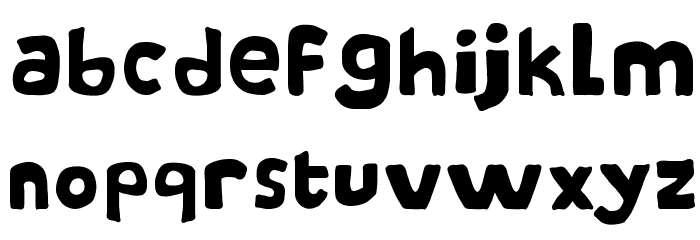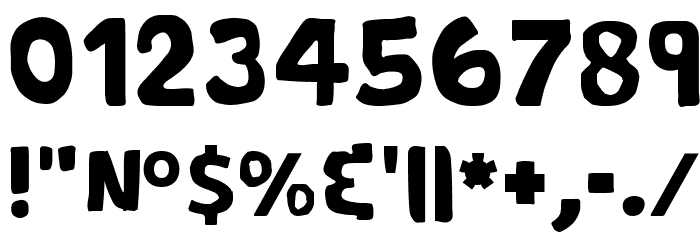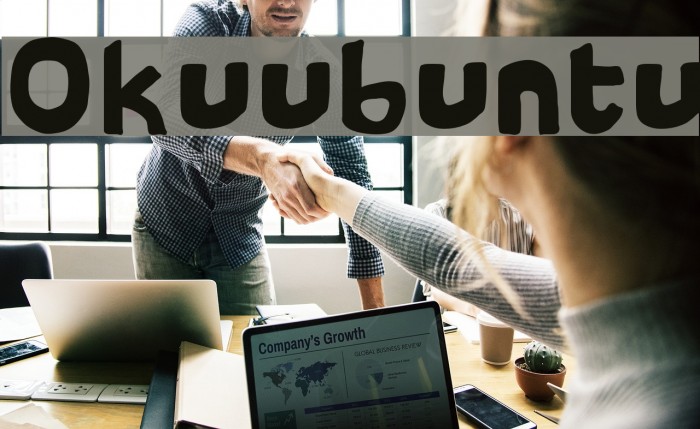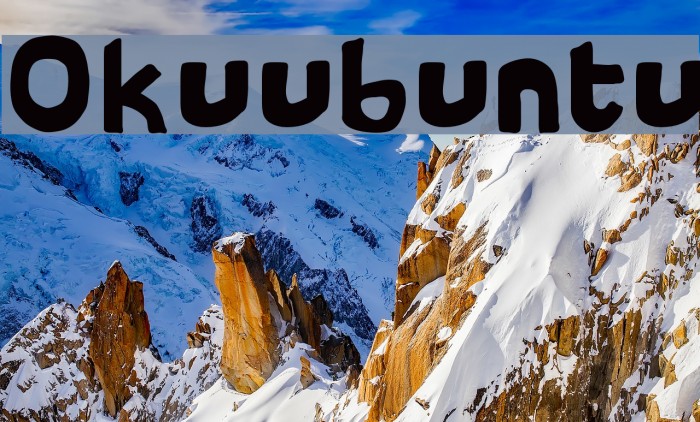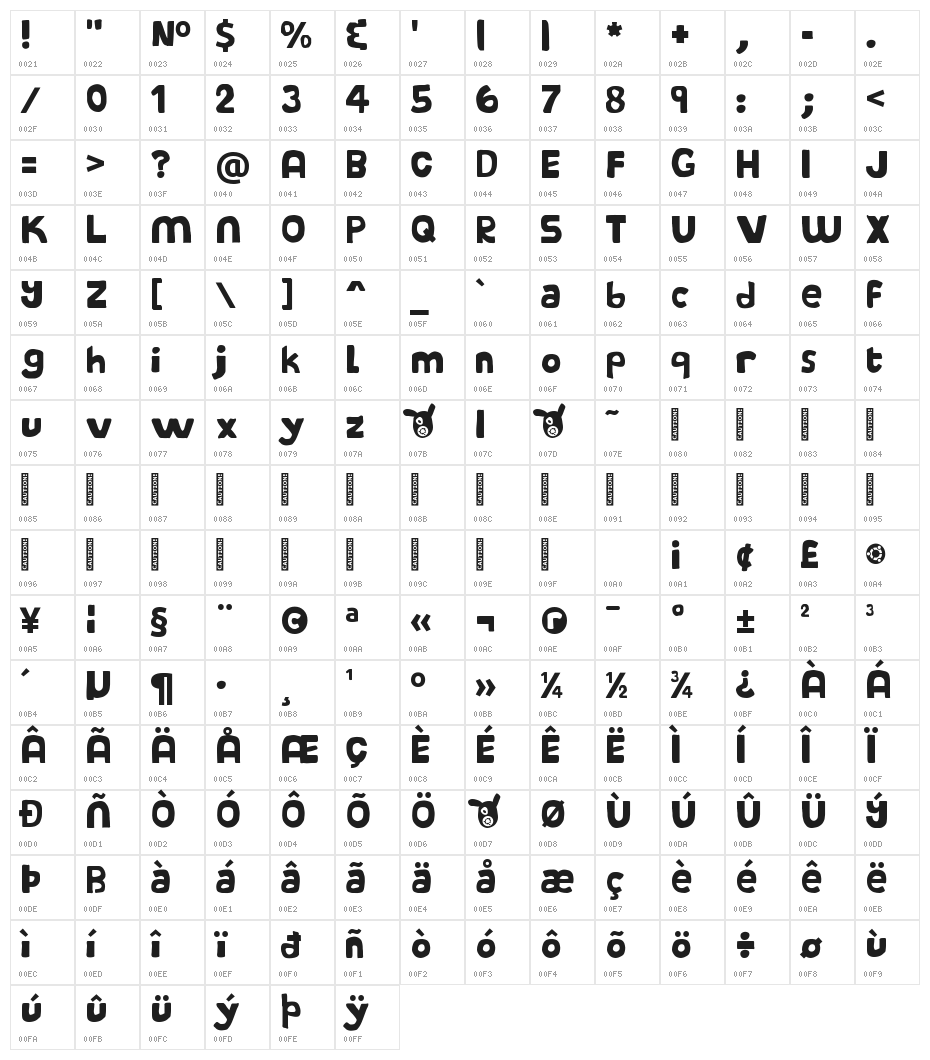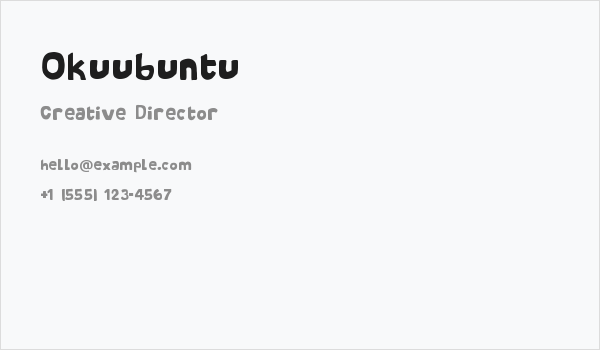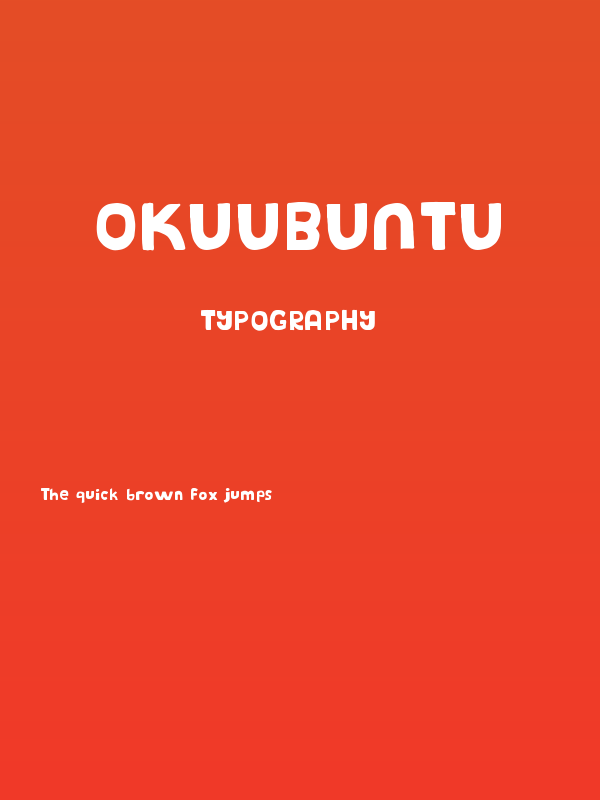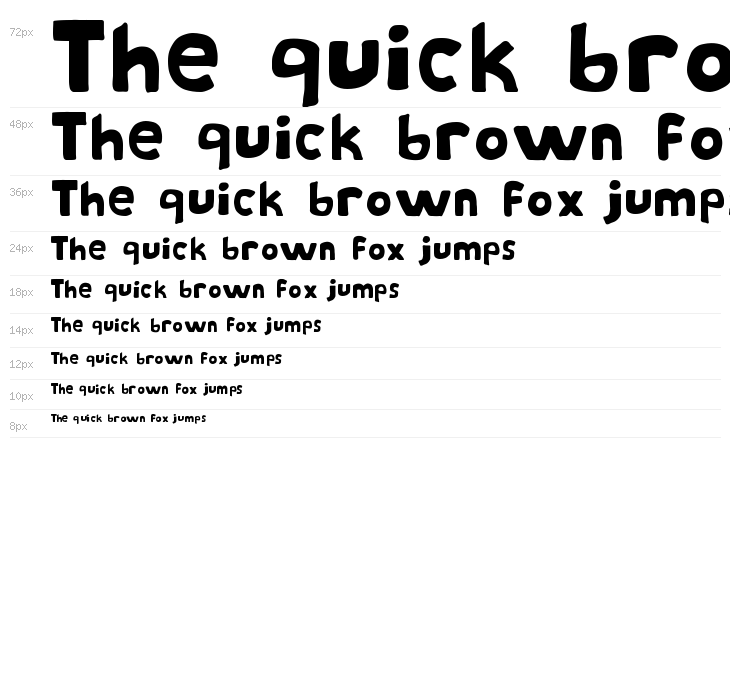
Okuubuntu Font
This font features a playful and bold design with rounded edges and a slightly irregular form, giving it a hand-drawn appearance. The characters are thick and substantial, providing a strong visual presence. The uppercase and lowercase letters maintain a consistent style, with a whimsical touch that adds character to the text. Numbers and special characters follow the same playful aesthetic, making the font suitable for creative and informal applications. The overall look is friendly and approachable, ideal for projects that aim to convey warmth and fun.
A playful, bold font with rounded edges and a hand-drawn feel.
- Proposed Projects: Ideal for children's books, playful branding, posters, and informal invitations.
- Overall Style: Playful, Whimsical